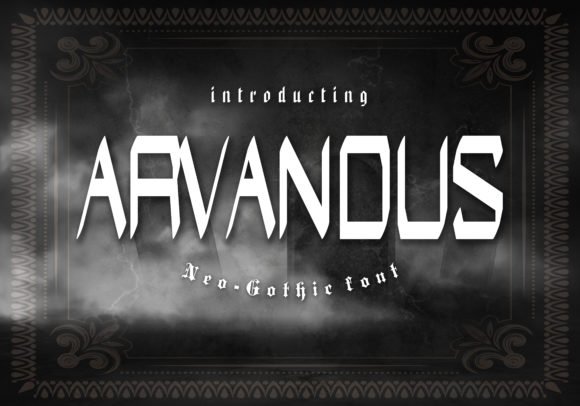
Unleash Your Creative Vision with Arvandus Font
Have you ever found yourself stuck in a design rut, searching for the perfect font to elevate your project? It’s a feeling we’ve all experienced at some point – the struggle to convey the essence of your idea through the right typography. For designers, this is a constant challenge. But what if you could unlock a font that not only captures the essence of modern design but also sets it ablaze with elegance?
Enter Arvandus Font, a modern, all caps display font specifically designed for contemporary design styles and applications. Its purpose is clear: to give your design an unmistakable touch of sophistication and refinement. Whether you’re working on a branding project, a website, or a print campaign, Arvandus Font is the perfect companion to bring your vision to life. With its unique character, it’s no wonder that designers are turning to Arvandus Font to add a touch of modernity to their work.
Arvandus Font Key Features
- Size and Resolution: This font is designed to work at various sizes and resolutions, including small sizes and high-resolution displays.
- Unique Characteristics: Arvandus Font is known for its elegant and modern design, making it suitable for a wide range of applications, including branding, advertising, and editorial content.
- Language Support: This font supports multiple languages, including Latin, Cyrillic, and Greek scripts, making it a versatile choice for global audiences.
- Font Weight and Style: Arvandus Font comes in various weights and styles, including light, regular, medium, bold, and italic, allowing users to choose the perfect look for their design.
- Optimized for Digital Use: This font is optimized for digital use, ensuring that it looks great on screens and in digital publications.
Arvandus Font Review
Overall, I think Arvandus Font is a solid choice for designers, but it’s not without its quirks. Let’s dive into what works well and what doesn’t.
- Unique aesthetic: Arvandus Font has a distinctive, modern look that’s perfect for branding and design projects that require a bit of edge.
- High-quality glyphs: The font’s character set is well-designed and easy to read, making it a great choice for body text and titles.
- Good legibility: Even at smaller sizes, Arvandus Font remains clear and easy to read, which is essential for any font.
- Limited language support: Arvandus Font is primarily designed for English-speaking audiences, which may limit its use for non-English projects.
- No bold or italic variants: While the font is well-designed, it’s missing some essential weight and style options, which can make it less versatile.
- Not suitable for small text: While Arvandus Font is legible at smaller sizes, it may not be the best choice for tiny text or captions.
Arvandus Font is a great choice for designers who want a modern, unique font that’s perfect for branding and design projects. However, its limitations may make it less suitable for certain projects or languages. With some additional weight and style options, Arvandus Font could be an even more powerful tool in a designer’s arsenal.
Arvandus Font is suitable for a variety of design applications, including: